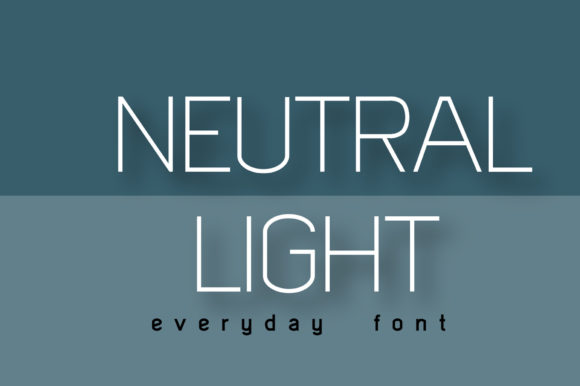
In the realm of captivating typography, allow me to introduce Neutral Light Font, an extraordinary sans serif creation that embodies elegance, simplicity, and versatility. Its clean and slender letterforms exude a sense of sophistication and seamlessness, making it the ideal choice for those seeking a font that commands attention without overpowering the content.
With Neutral Light's versatility as its greatest strength, it effortlessly adapts to a myriad of projects, from sleek magazine covers and striking posters to eye-catching website designs and captivating presentations. Each carefully crafted character exudes a modern, minimalist aesthetic, lending itself flawlessly to both print and digital applications.
Imagine your words, adorned with the grace of Neutral Light, gracing the covers of renowned magazines, instantly captivating the attention of readers. Its delicate strokes and understated presence allow your content to shine, inviting readers to delve into the depths of your stories and ideas.
Step into the realm of limitless creativity, where Neutral Light Font seamlessly blends with your artistic vision. Its clean lines and minimalist style empower you to create designs that resonate with sophistication and elegance. Let your creative juices flow freely as you explore the boundless possibilities that Neutral Light Font offers.
Welcome to a world where typography transcends the ordinary, where fonts speak volumes, and where your ideas come to life with unparalleled impact. Embrace the power of Neutral Light Font, and embark on a typographic journey like no other.